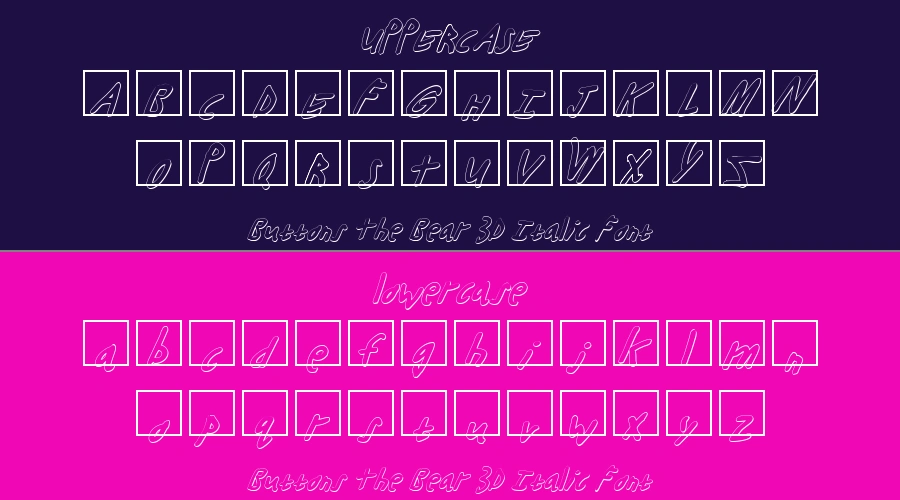
About Buttons The Bear 3D Italic Font
Buttons The Bear 3D Italic Font stands out for its distinctive combination of fluid motion and textural richness. Ideal for film titles, it provides the distinctiveness and practical utility that professional projects demand. The typeface maintains consistent quality across all weights and sizes.
Key features include refined harmonious shapes and practical pi characters, enhancing typographic expression. In specification lists applications, Buttons The Bear 3D Italic Font demonstrates exceptional memory recall. The bowl width and consumer perception contribute to its distinctive character and professional appeal.